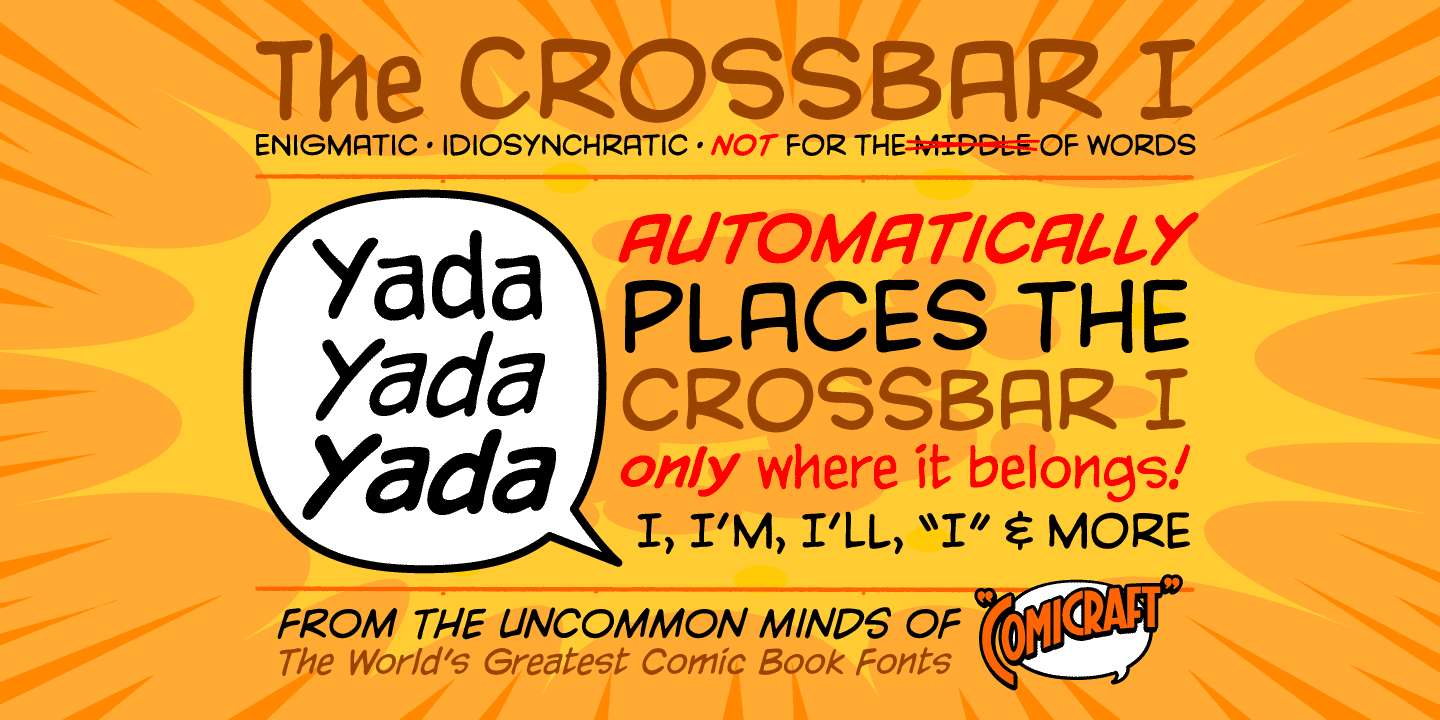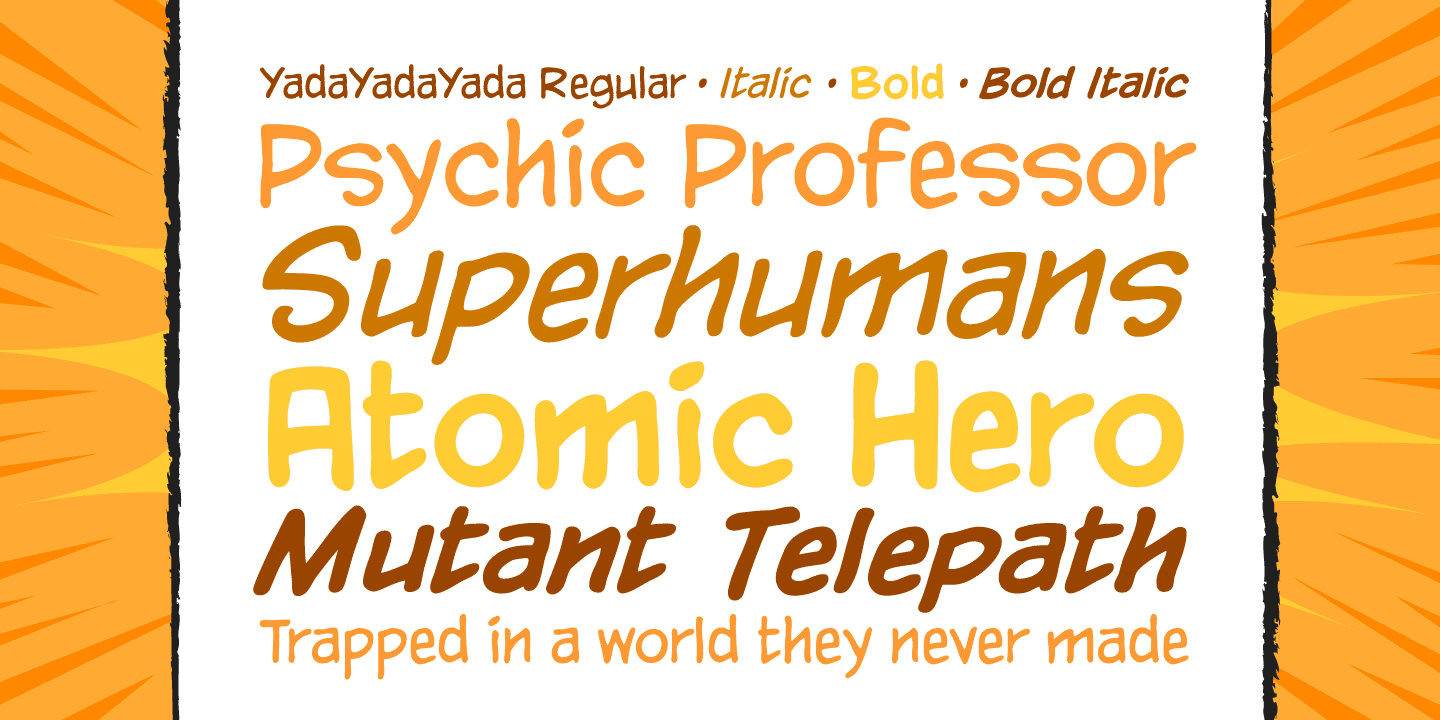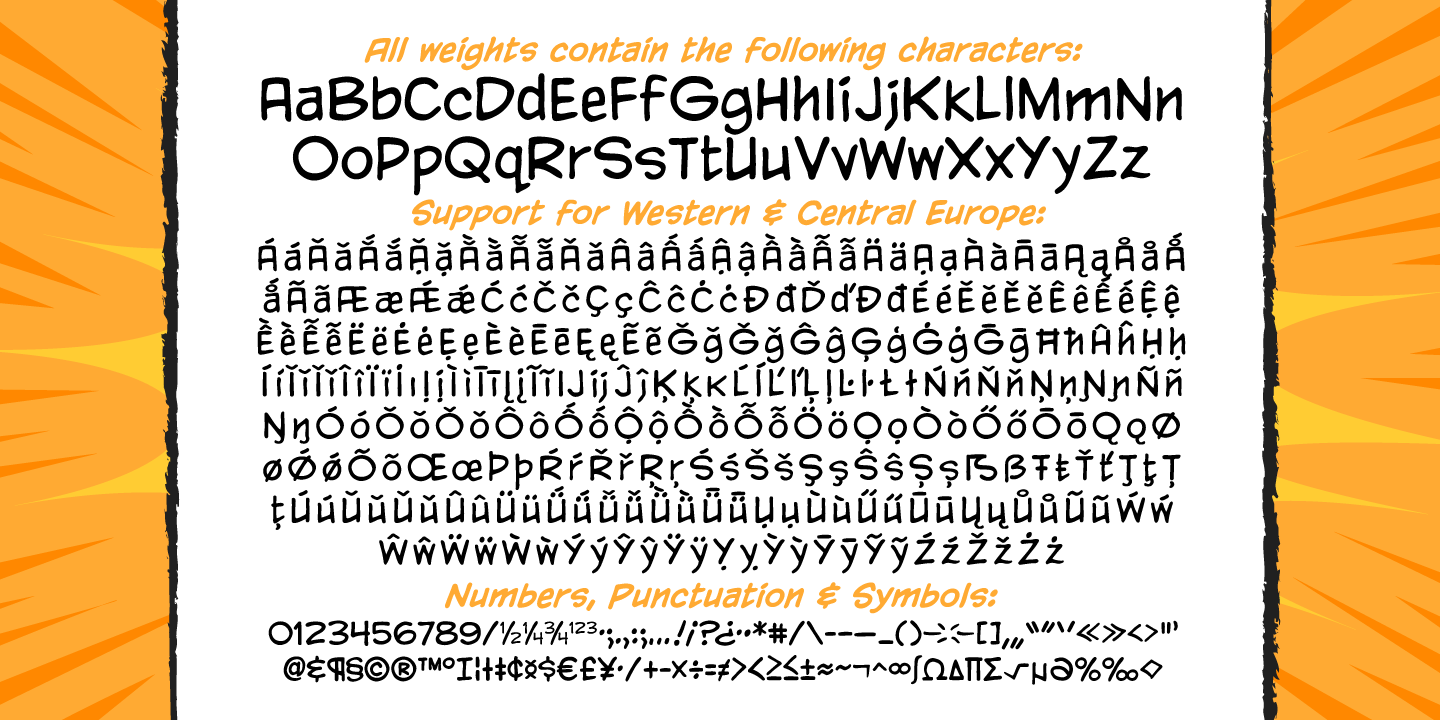
Yada Yada Yada
Y’know the real trouble with Spider-man, Superman and the rest of the soulful superheroes, gloating supervillains and musing muckmonsters, is They Just Don’t Shut Up!
For Crying Out Loud, give those iron jaws a REST willya?!? Yak Yak Yak! Blah Blah Blah! Yada Yada Yada... "With Great Power Comes Great Responsibility!" "You won’t get away with this, Luthor!" "I’m the best there is at what I do!" Letterers don’t get paid by the WORD you know! QUIT YER WHINING!
Yeah, yeah, yeah this font IS the much requested typeset -- featuring upper AND lower case characters -- created by Starkings & Roshell for the X-Men back in the AGE OF APOCALYPSE. Hell’s Squakkin’ Teeth -- The X-MEN... don’t even get us started on THOSE guys! What THEY need is the mutant ability to put a freakin’ sock in it!